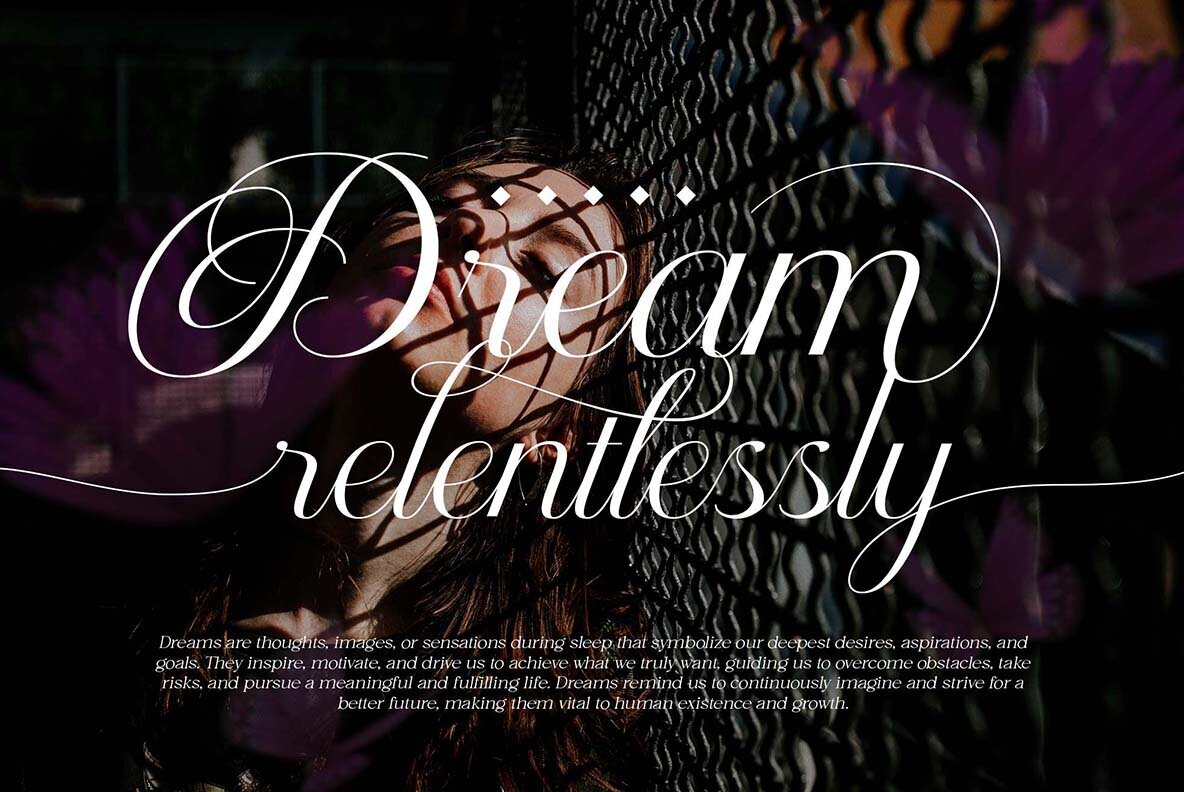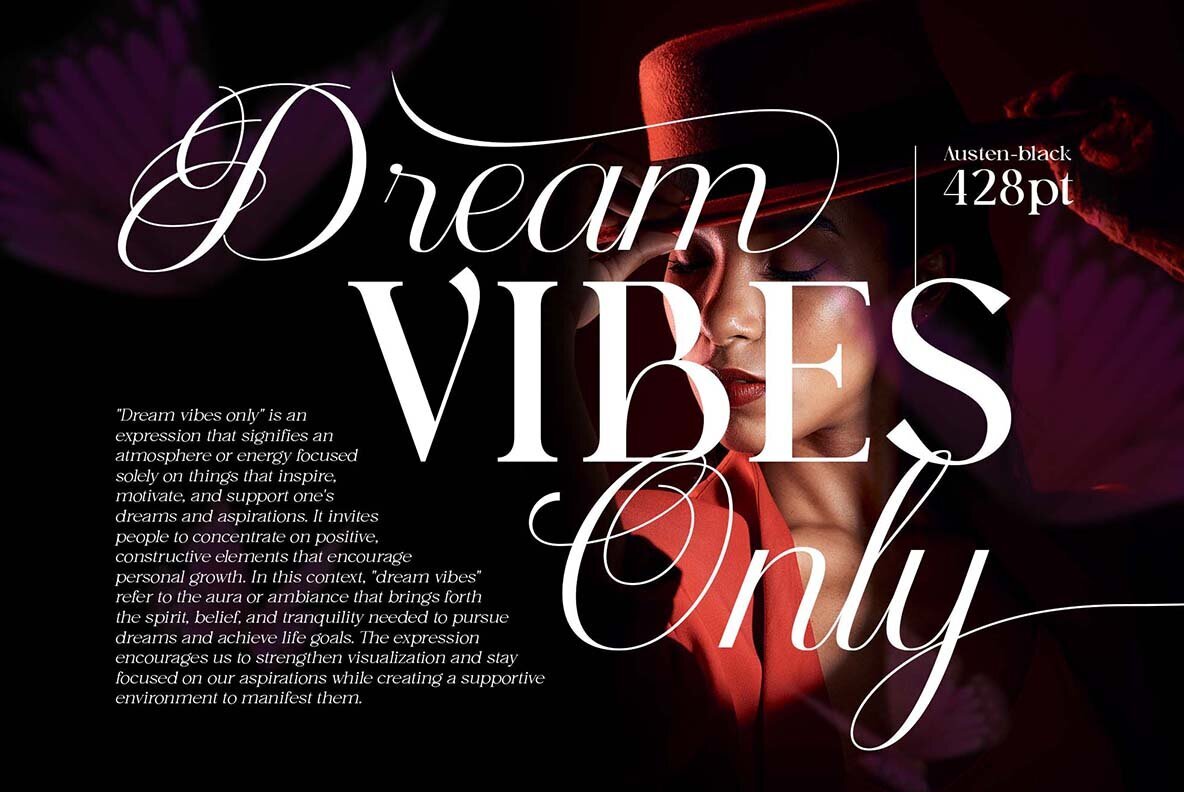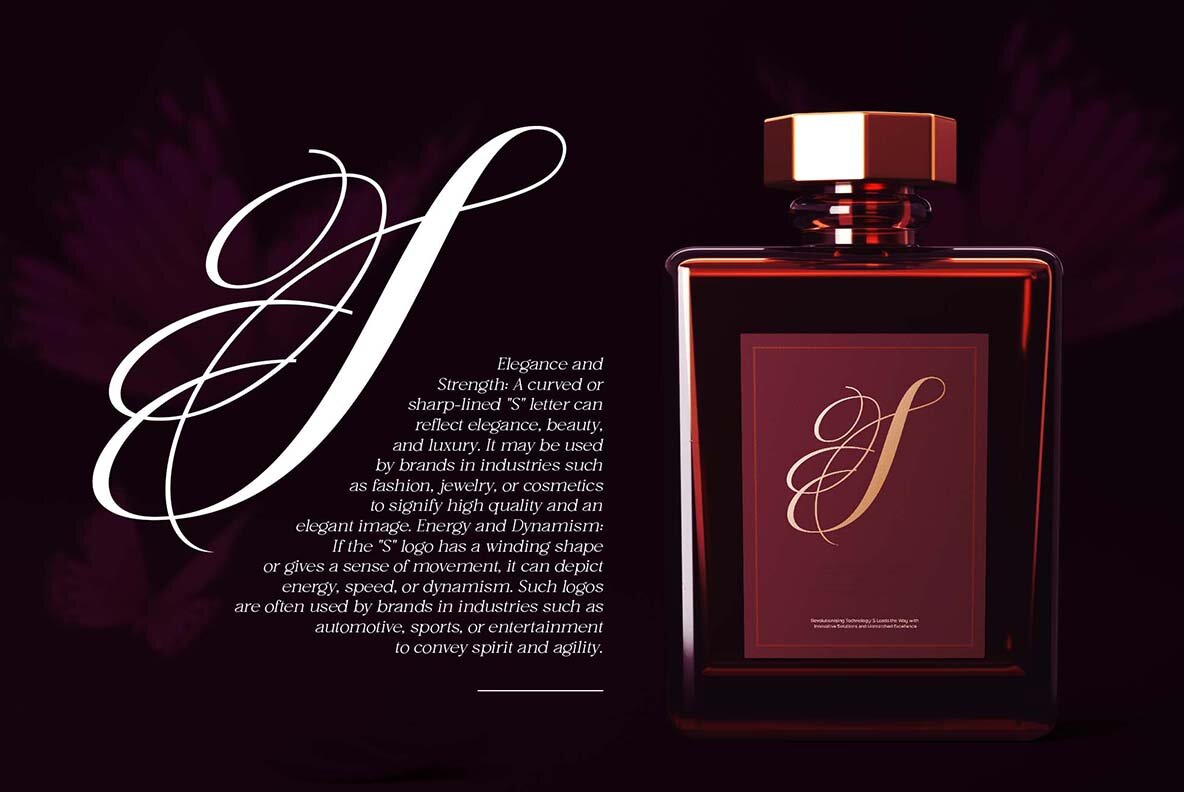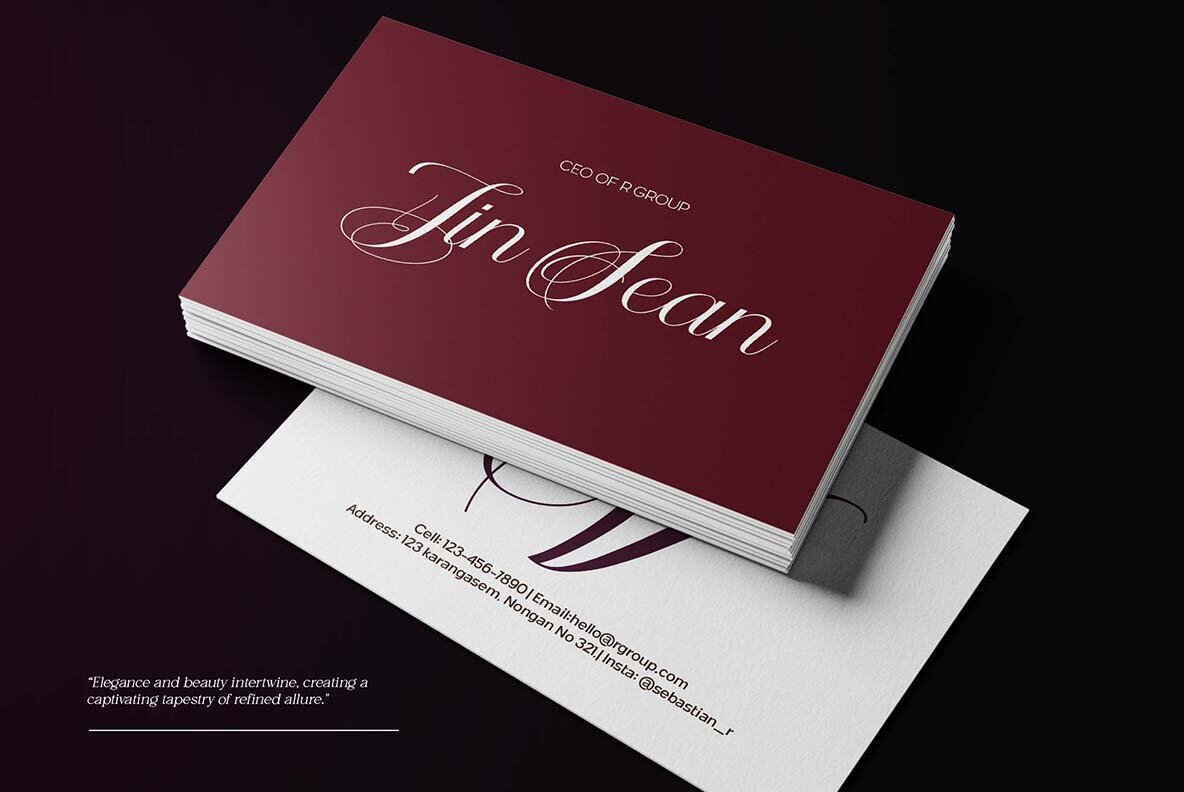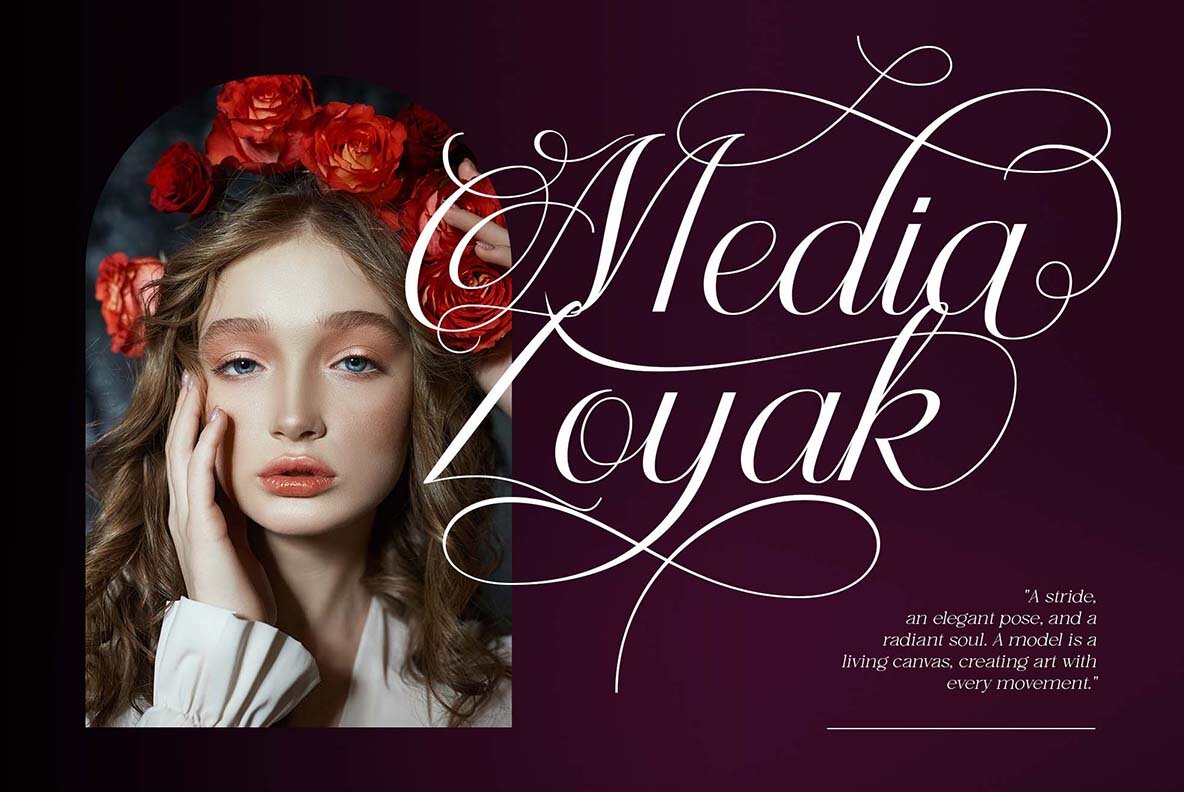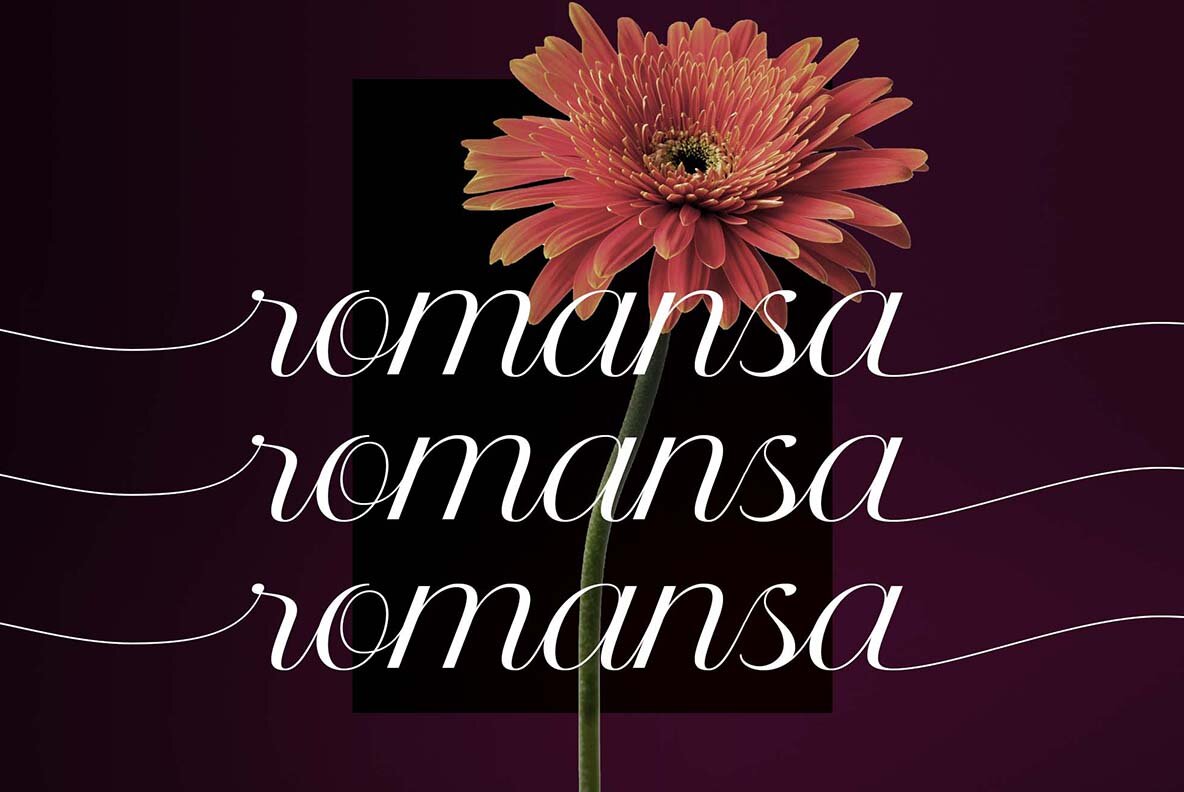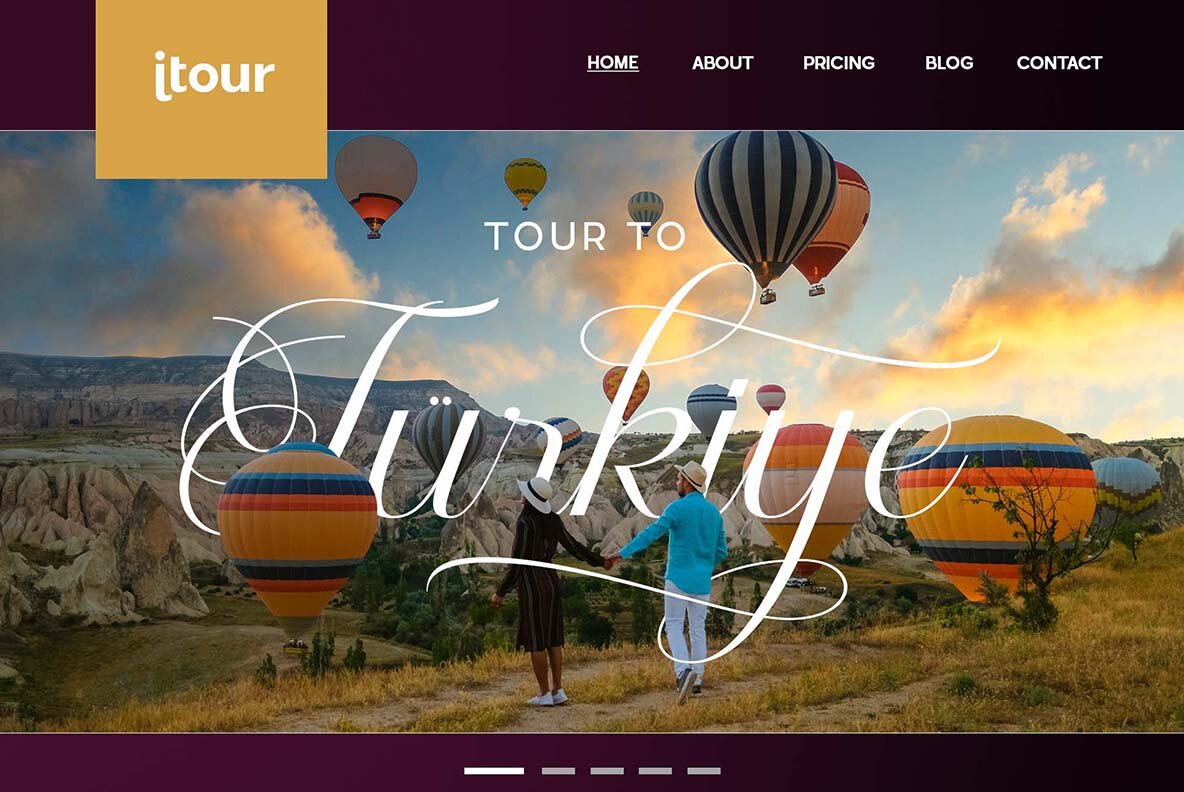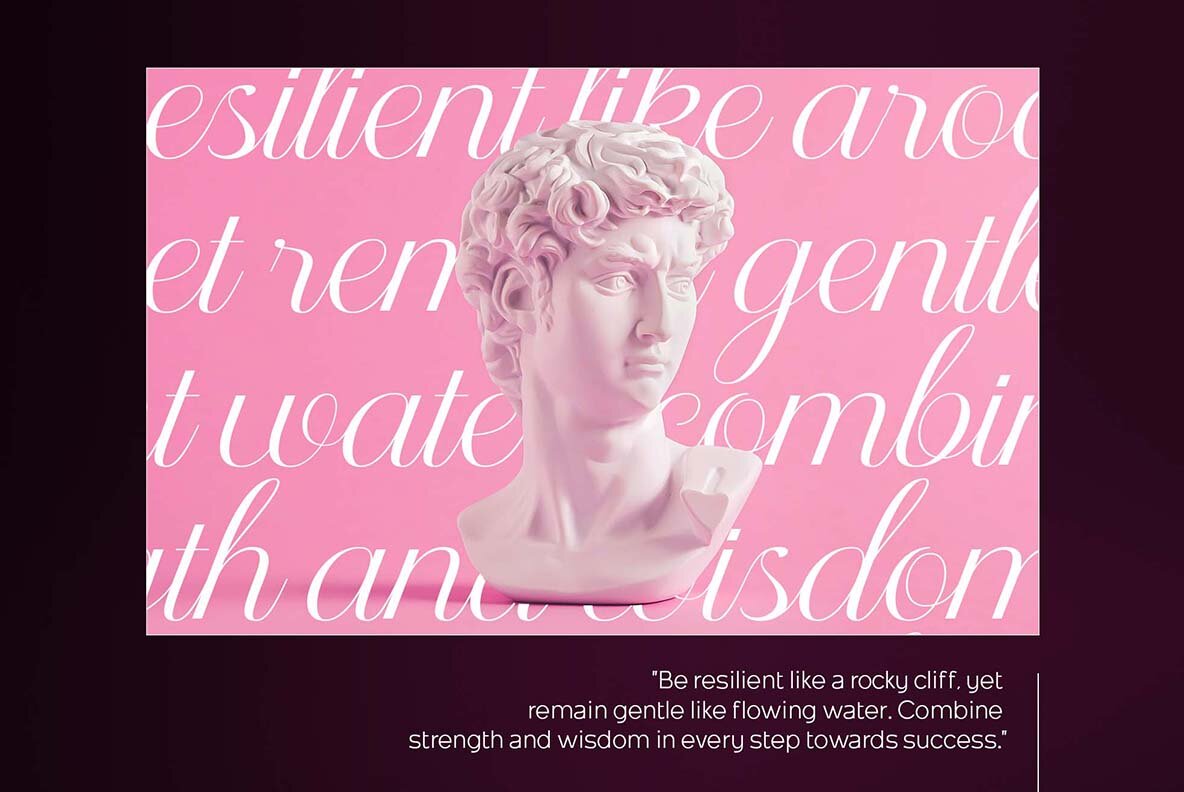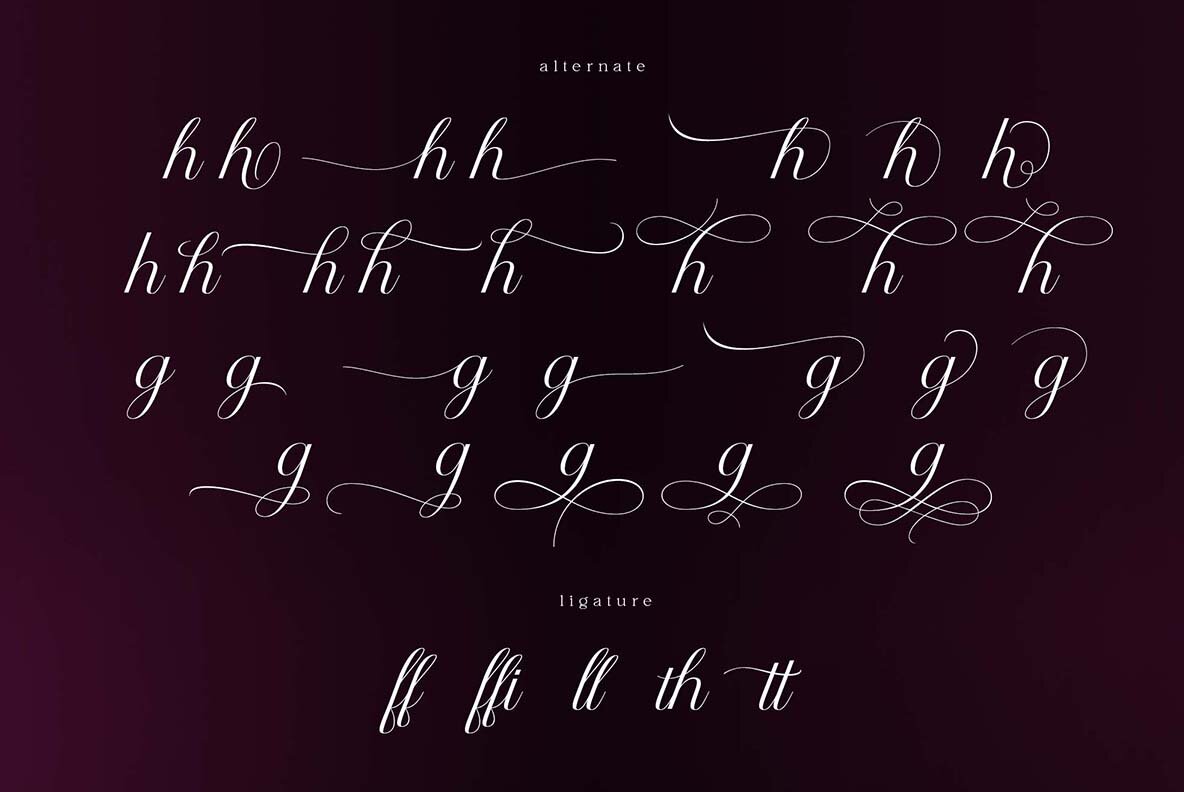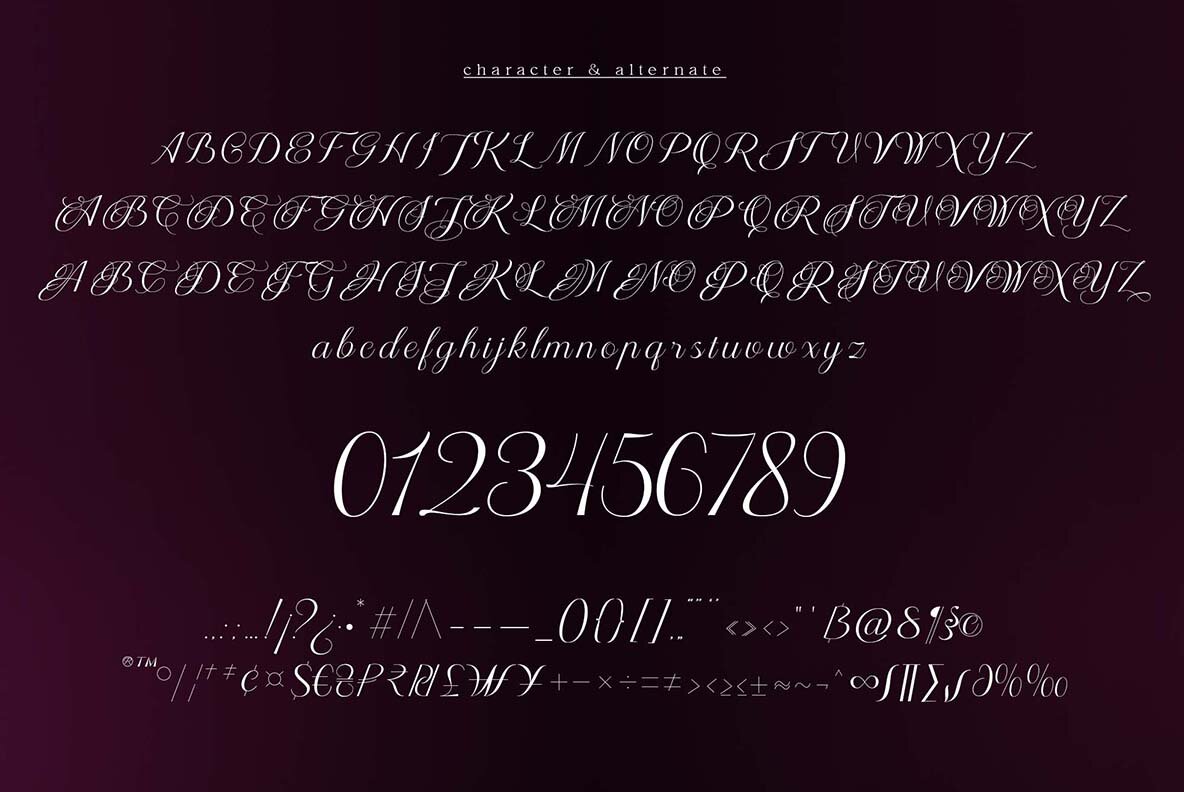
Altheria Font is a script font with an exquisite handwriting style. Designed with meticulous attention to detail, Altheria offers various alternate characters that allow you to create unique, captivating, and embellishing letterforms in your designs. With its diverse character collection, Altheria provides numerous options to add a personal touch to your design works. The ability to choose from different letter variations grants unlimited flexibility and creativity, making it perfect for crafting attractive and distinctive visuals. One of Altheria's main features is its abundance of ligatures, which enhance the font's appeal and aesthetic quality. Ligatures are specially designed character combinations that produce a smoother, more harmonious impression in writing. Thus, Altheria offers not only beautiful letter shapes but also provides exceptional visual balance among interconnected characters. Furthermore, Altheria supports multiple languages, allowing you to utilize this font in various multilingual projects. This makes it an incredibly versatile option for design purposes that aspire to exude a luxurious and elegant impression. Altheria is highly suitable for a wide range of design projects, including but not limited to book covers, fashion magazines, business cards, wedding invitations, and much more. The font imparts a unique luxury and elegant appeal to every applied design. With Altheria, you can create attention-grabbing works that elevate the aesthetic value of each design project you undertake.